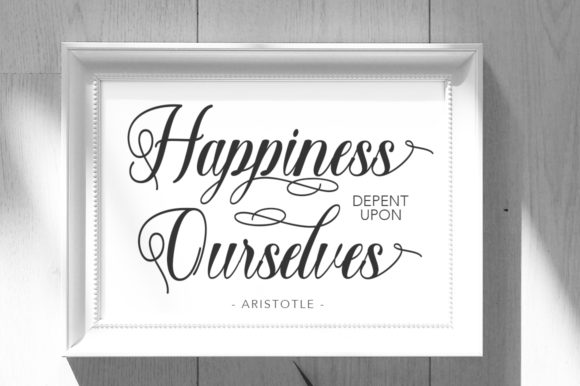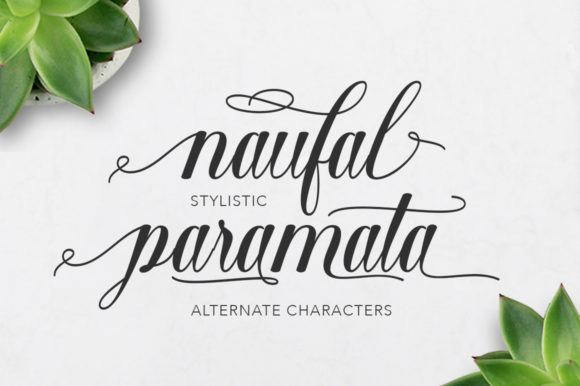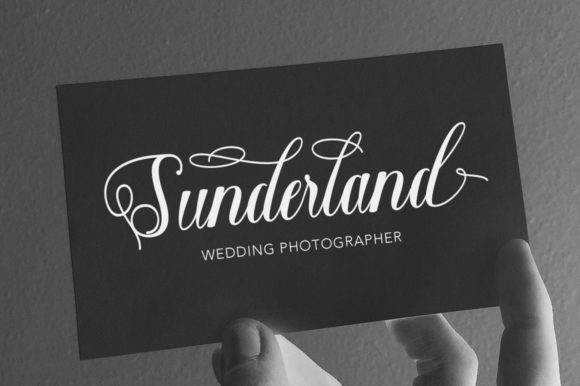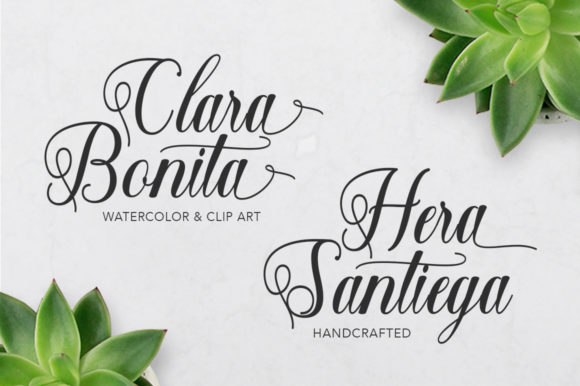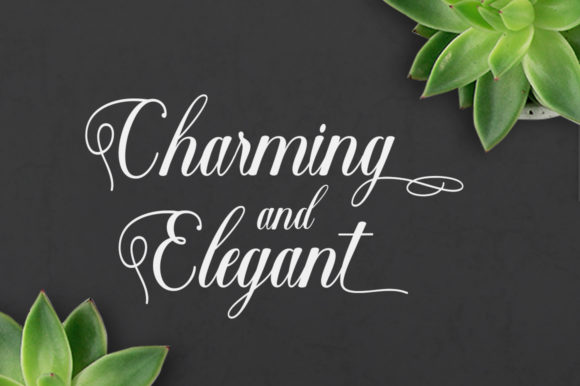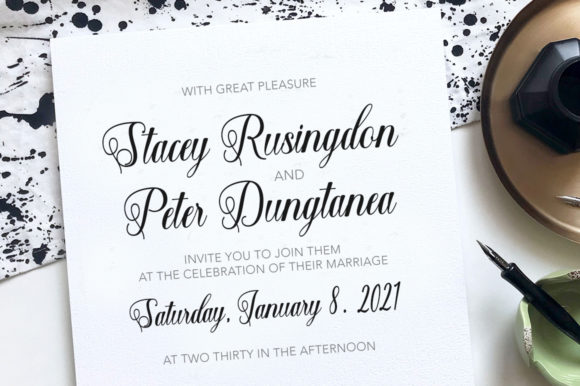
Introduction to Shantea Font
Have you ever stumbled upon the perfect design inspiration, only to find yourself struggling to find the right font to bring it to life? That’s exactly what happened to me, and it’s what led me to discover the incredible Shantea Font. This stunning script font is more than just a pretty face – it’s a design game-changer, perfect for any creative project that requires a touch of elegance and sophistication.
With its gorgeous swashes and ligatures, the Shantea Font is an absolute dream to work with. Whether you’re designing a logo, creating a social media graphic, or crafting a beautiful hand-lettered piece, this font is sure to elevate your design to the next level. And the best part? It’s a free download, making it an invaluable resource for designers of all levels.
So, what makes the Shantea Font so special? In this article, we’ll dive into the world of this incredible design resource and explore its many features, including alternate glyphs and ligatures, making it the perfect choice for any high-quality creative project.
Key Features of Shantea Font
- High-quality design resource with a unique and creative style, perfect for any project.
- Each character is carefully crafted with high resolution, ensuring crisp and clear typography.
- Supports a range of languages, making it a versatile choice for international creative projects.
- Features a modern and elegant design, ideal for use in logos, branding, and other high-end design applications.
Honest Review: Shantea Font
I recently stumbled upon the Shantea Font, and I must say it’s a fantastic addition to any designer’s toolkit. The high-quality design and transparent background make it perfect for creative projects that require a touch of elegance.
Here are some things that work well with the Shantea Font:
- ✨ Beautiful, cursive script that adds a personal touch to any design
- ⚠️ Limited font styles and weights available, which may not be suitable for complex designs
- ⚠️ Some users may find the font’s cursive script difficult to read at smaller sizes
Overall, I’m impressed with the Shantea Font. It’s a great resource for designers who want to add a touch of sophistication to their creative projects. While it may have some limitations, the benefits far outweigh the drawbacks. I’d definitely recommend giving it a try.
How to Use Shantea Font
The Shantea Font is a high-quality, free design resource that can elevate your creative project with its elegant and sophisticated style. With a transparent background, this font is versatile and easy to use in various design applications.
Tips for Getting the Most Out of Shantea Font
To get the most out of the Shantea Font, try using it in combination with other design elements, such as bold typography and minimalist graphics.
The Shantea Font is perfect for:
- Editorial and publishing design
What is the recommended resolution for using the Shantea Font?
The recommended resolution for using the Shantea Font is 300 DPI (dots per inch). This ensures that the font appears crisp and clear in your design, whether it’s for print or digital use. If you’re working on a project that requires a higher resolution, you can adjust the font size and spacing accordingly to achieve the desired effect.